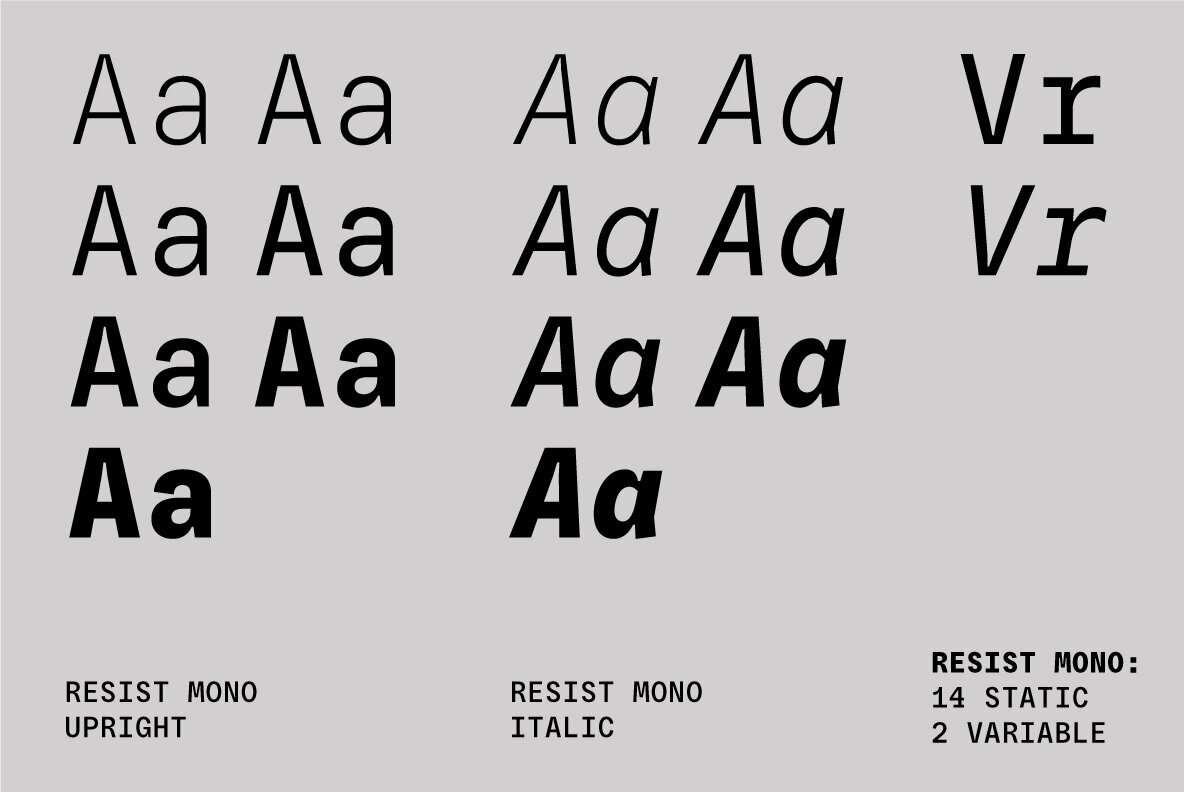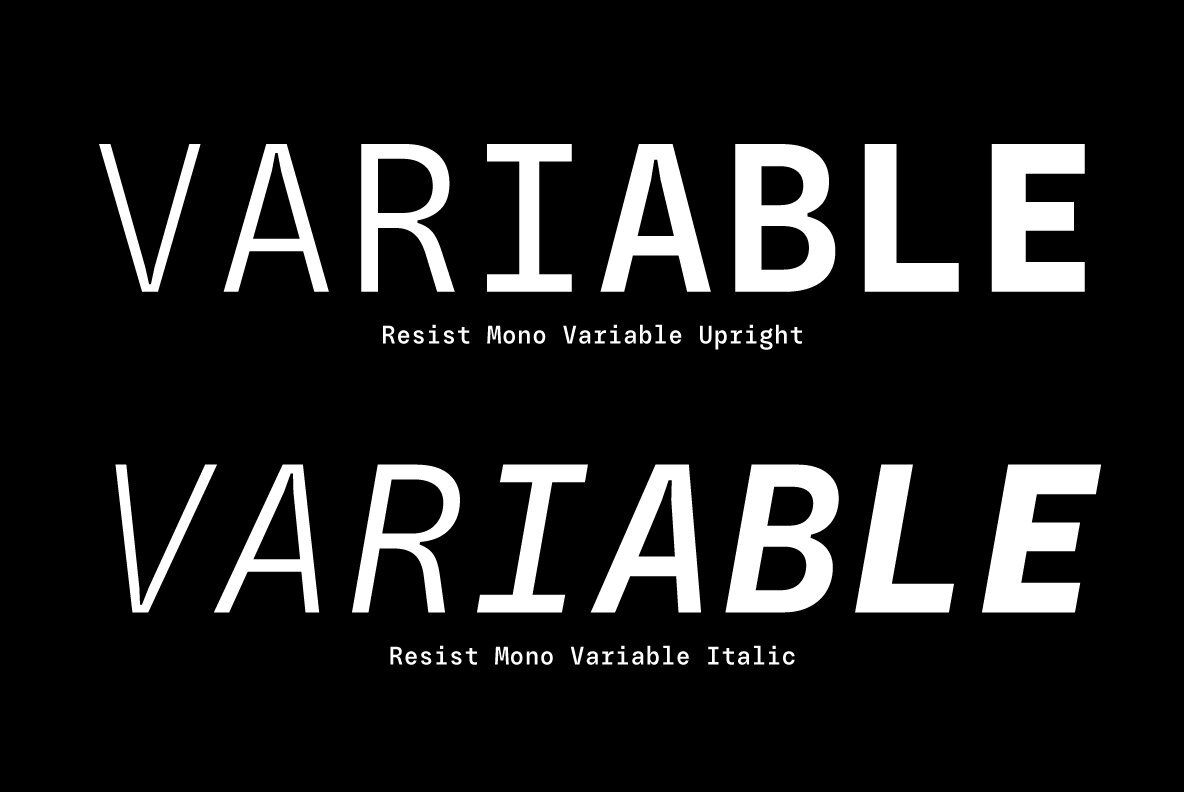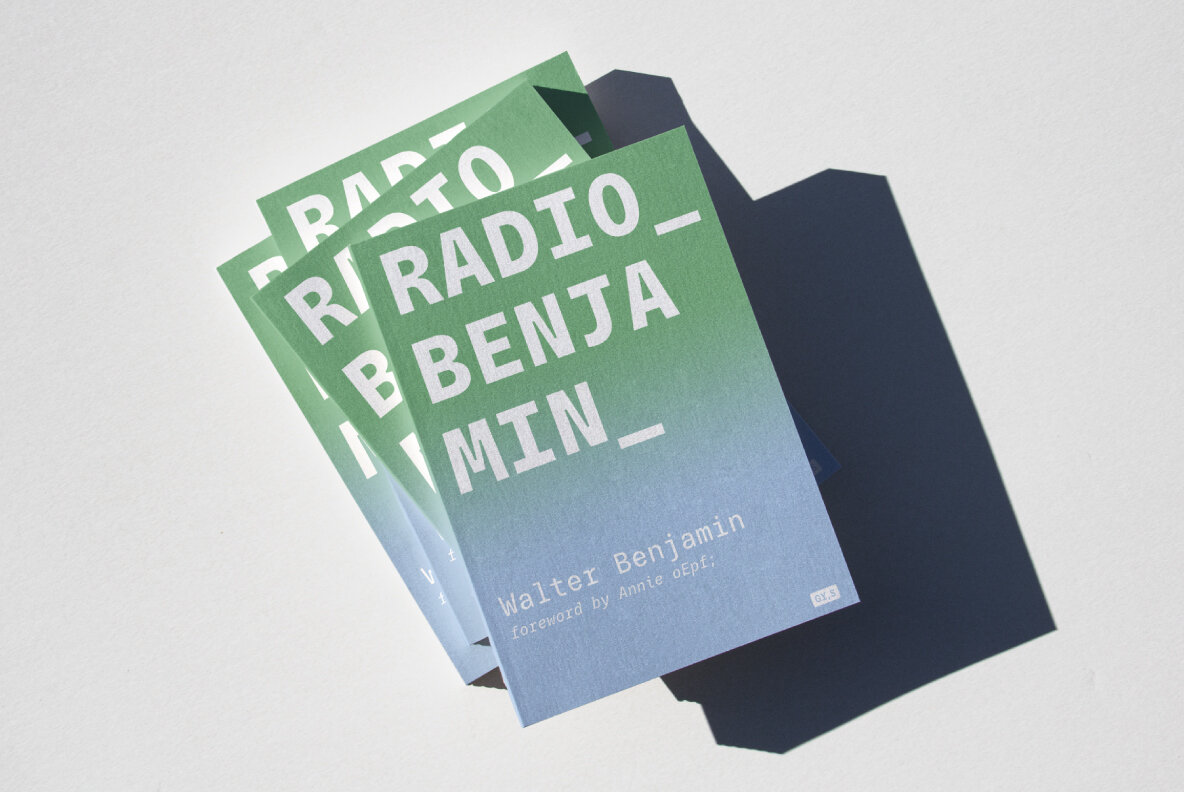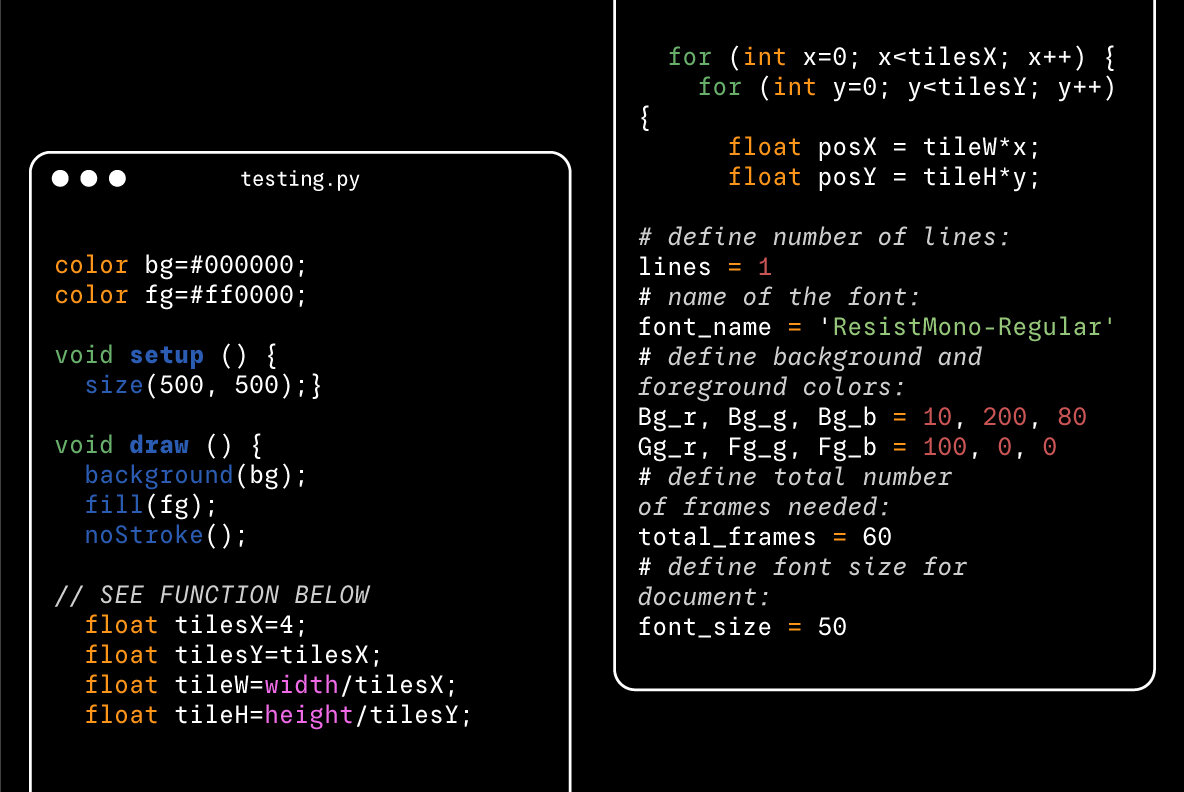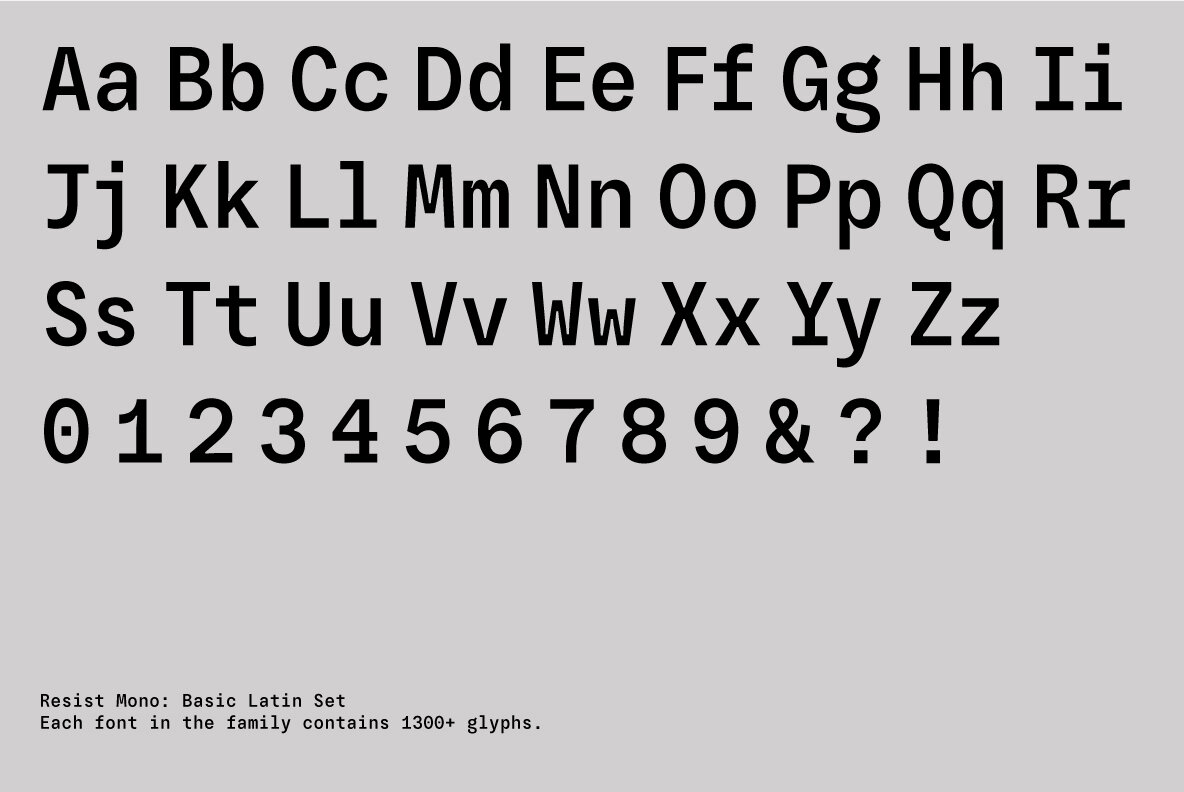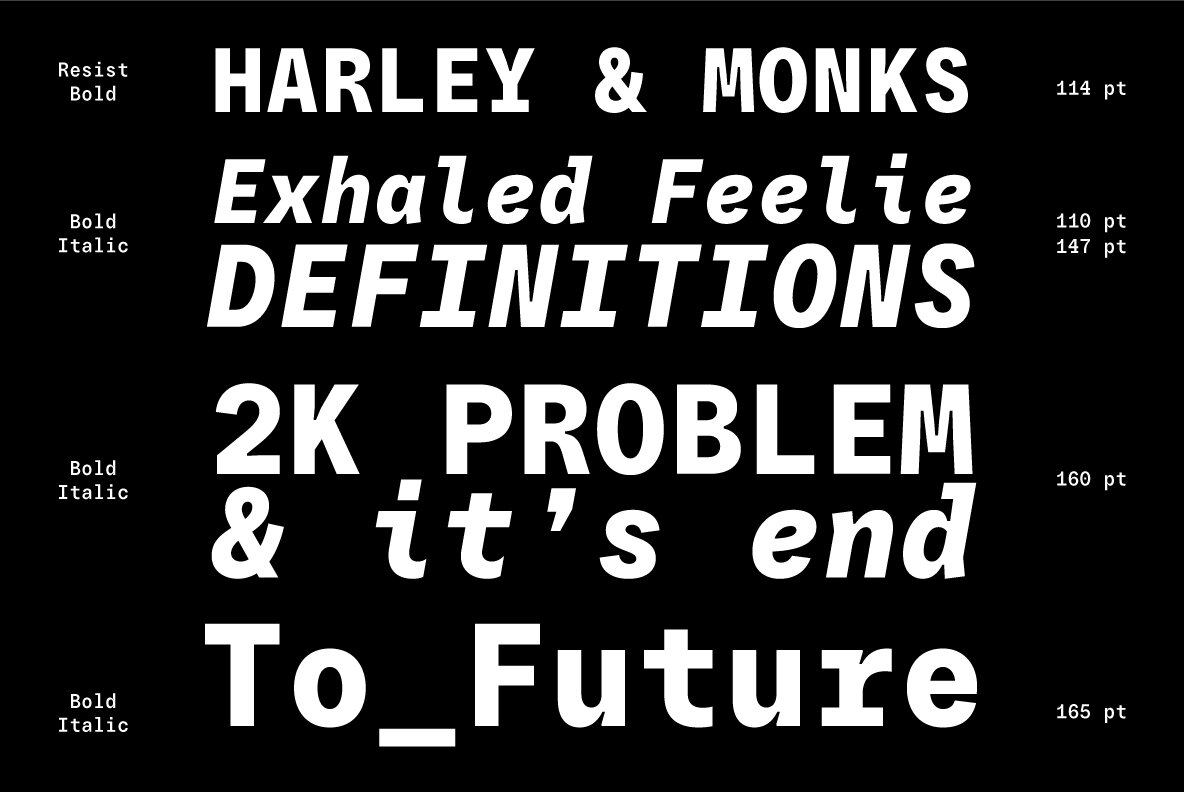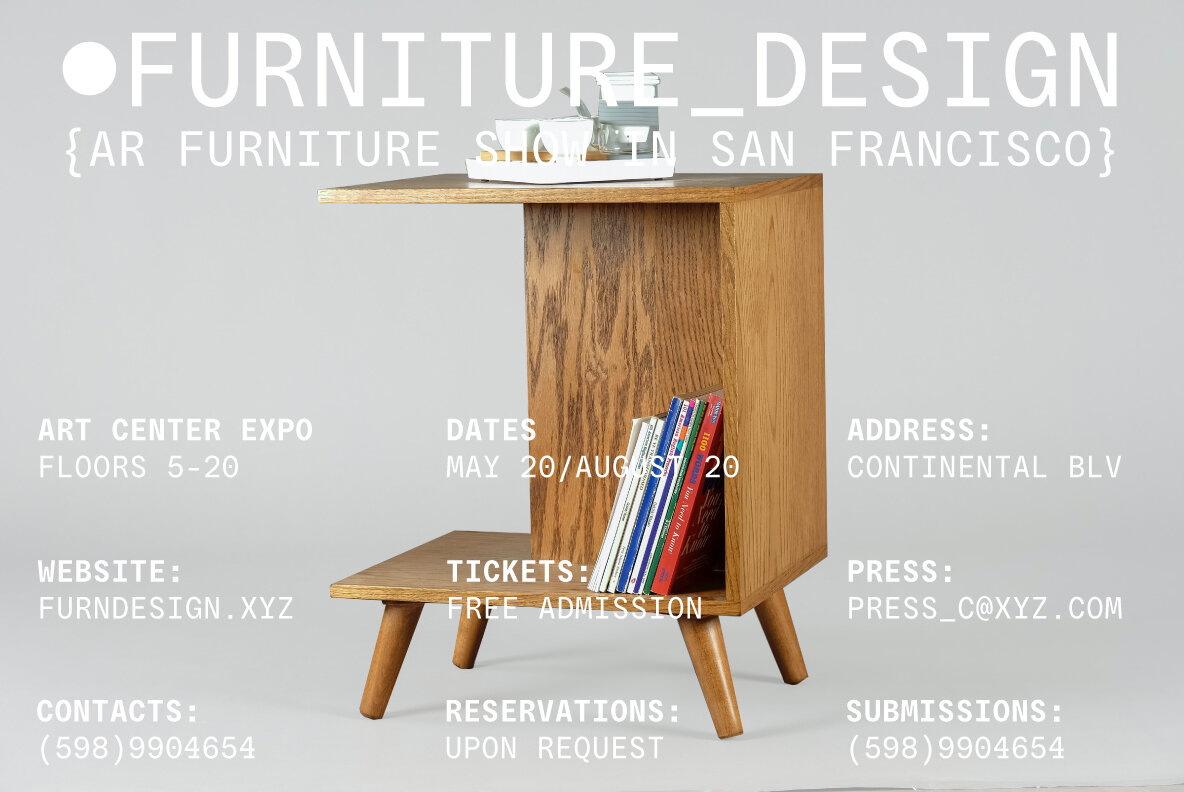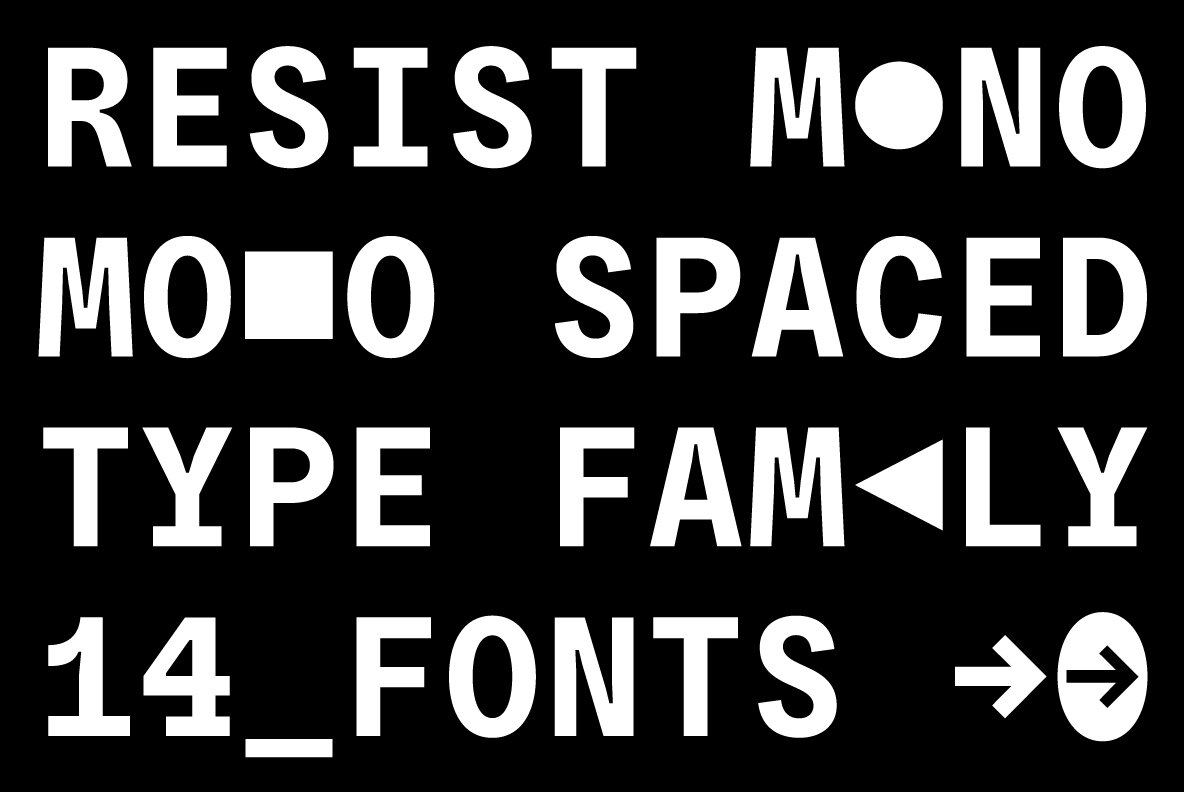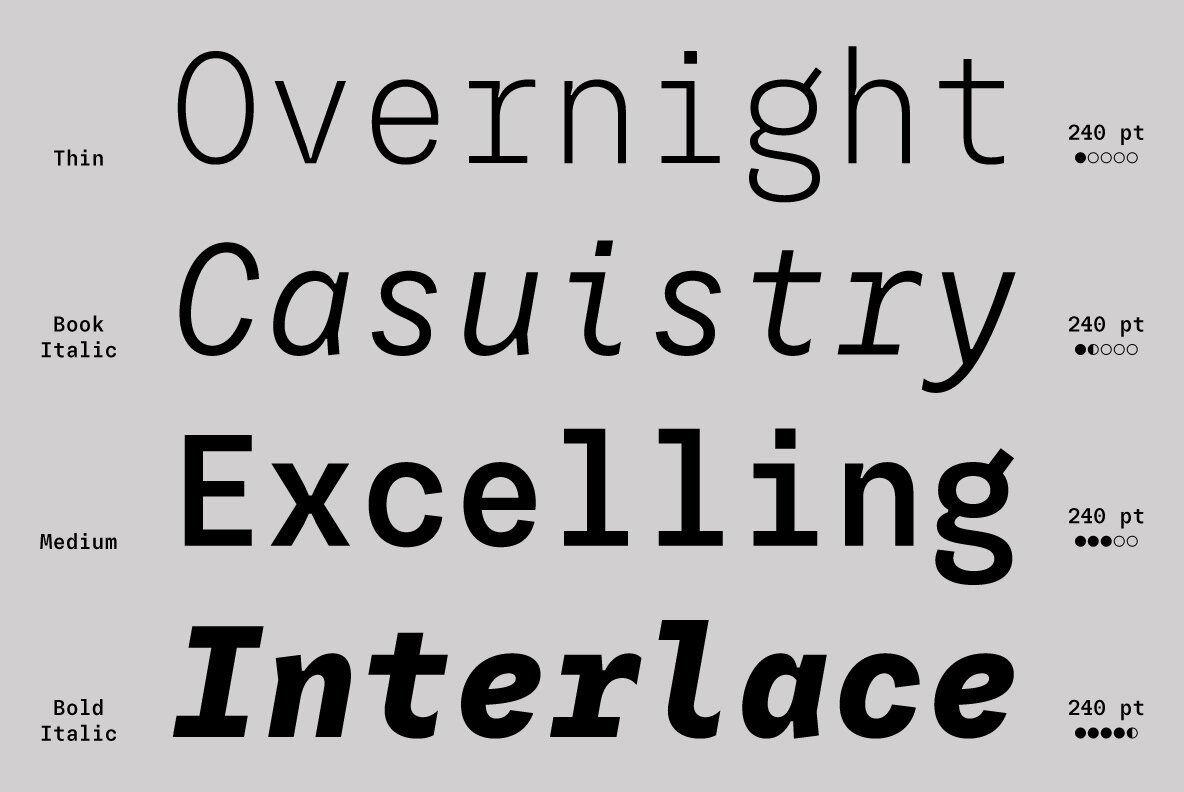
Resist Mono Font
Resist Mono is a monospaced version of Resist Sans released in 2022. Borrowing the most distinct features of its predecessor, Resist Mono features are deep inktraps, angled terminals, and amazing legibility. Developed for use both in coding and product/graphic design, Resist Mono is highly legible even at small sizes, all the while retaining its unique bold personality and style.
Resist Mono Overview:
- 1300+ characters per font
- 14 static fonts
- 2 variable fonts
- True Italics
- Small Capitals
- Extensive OpenType features
- Supports 200+ Languages (Latin & Cyrillic)
- Special Symbols and Features
Resist Mono comes in 16 styles (14 static fonts) and two variable fonts. Each font contains over 1300 glyphs, including letters, small capitals, numbers, punctuation, symbols, etc. Resist Mono supports more than 200 Latin-based languages and has extensive Cyrillic support for languages like Russian, Bulgarian, Ukrainian, and many more. In addition to this, Resist Mono also includes special Powerline symbols for coding.
OpenType features in Resist Mono include Small Capitals, Case Sensitive Punctuation, Stylistic Alternates, Fractions, Sub- and Superscript, Ligatures and many more.
Resist Mono was developed to be a functional and highly legible font, which is especially important in coding. Resist Mono features 'true' italics that look more calligraphic than regular slanted styles. Regular slanted letterforms can be accessed through OpenType, by selecting a corresponding stylistic set.